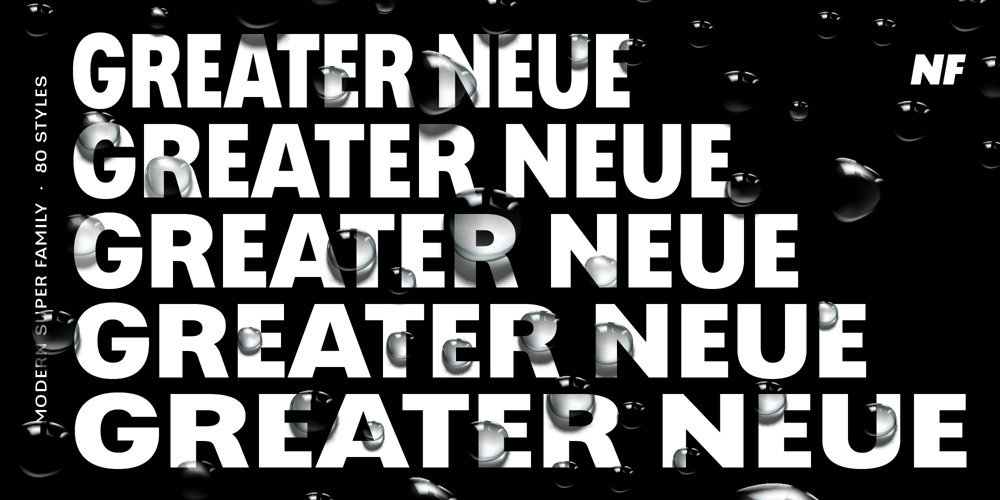
Greater Neue Font Family was designed by Nikolay Savchuk and published by NicolassFonts. Greater Neue contains 80 styles and family package options. The Greater Neue font family is a modern collection consisting of 80 weights, 40 uprights, and matching italics. It is perfect for packaging, advertisements, headlines, and corporate identities. This font family is well-suited for graphic design and any type of display use.